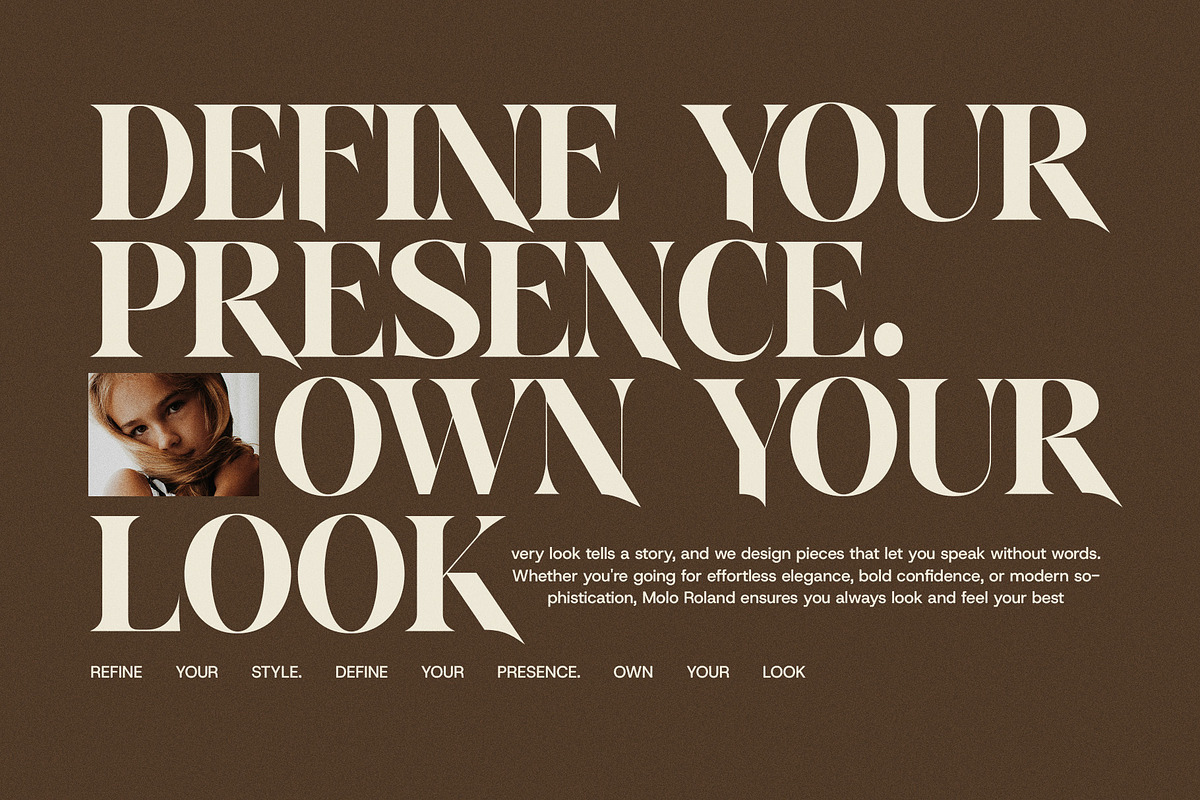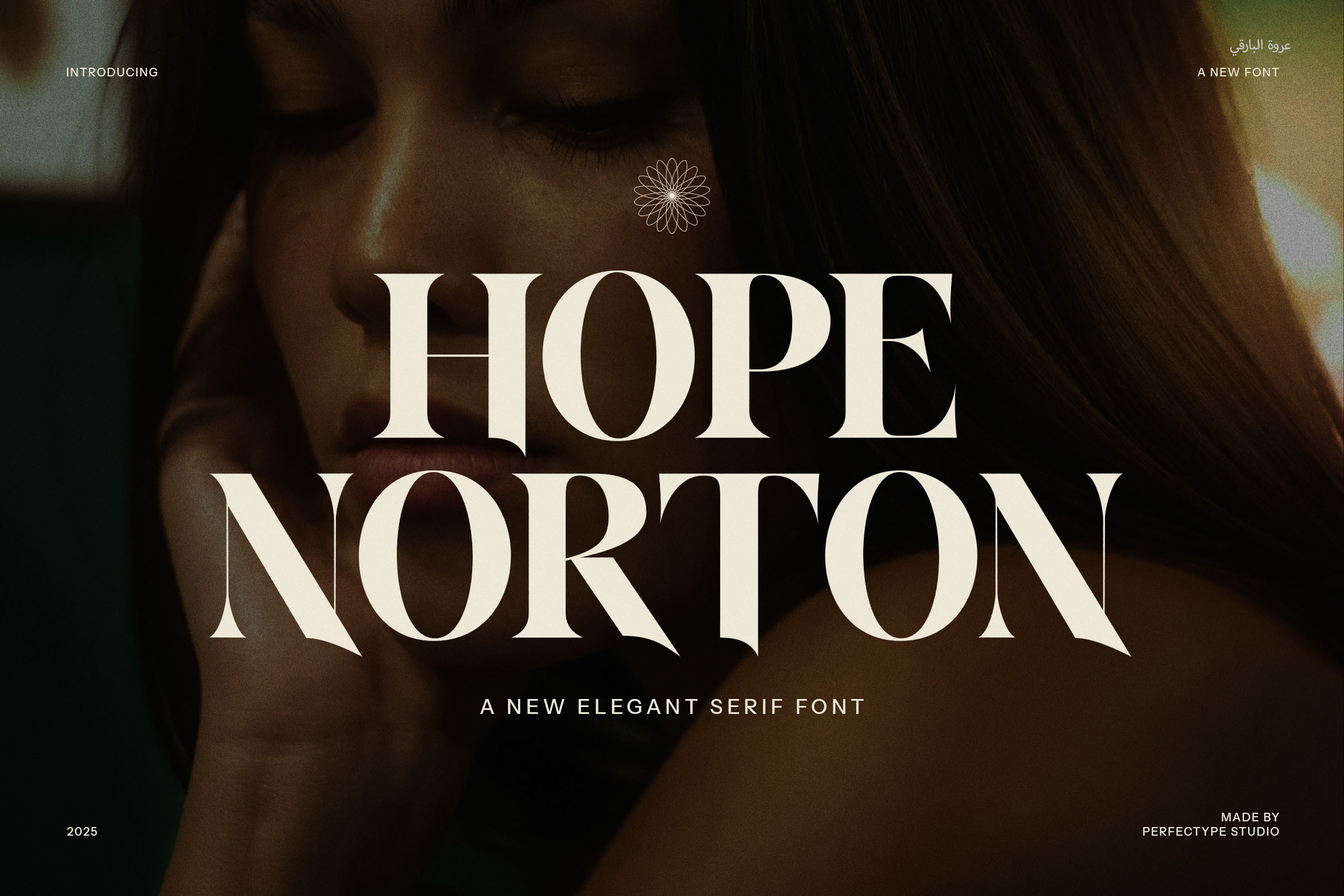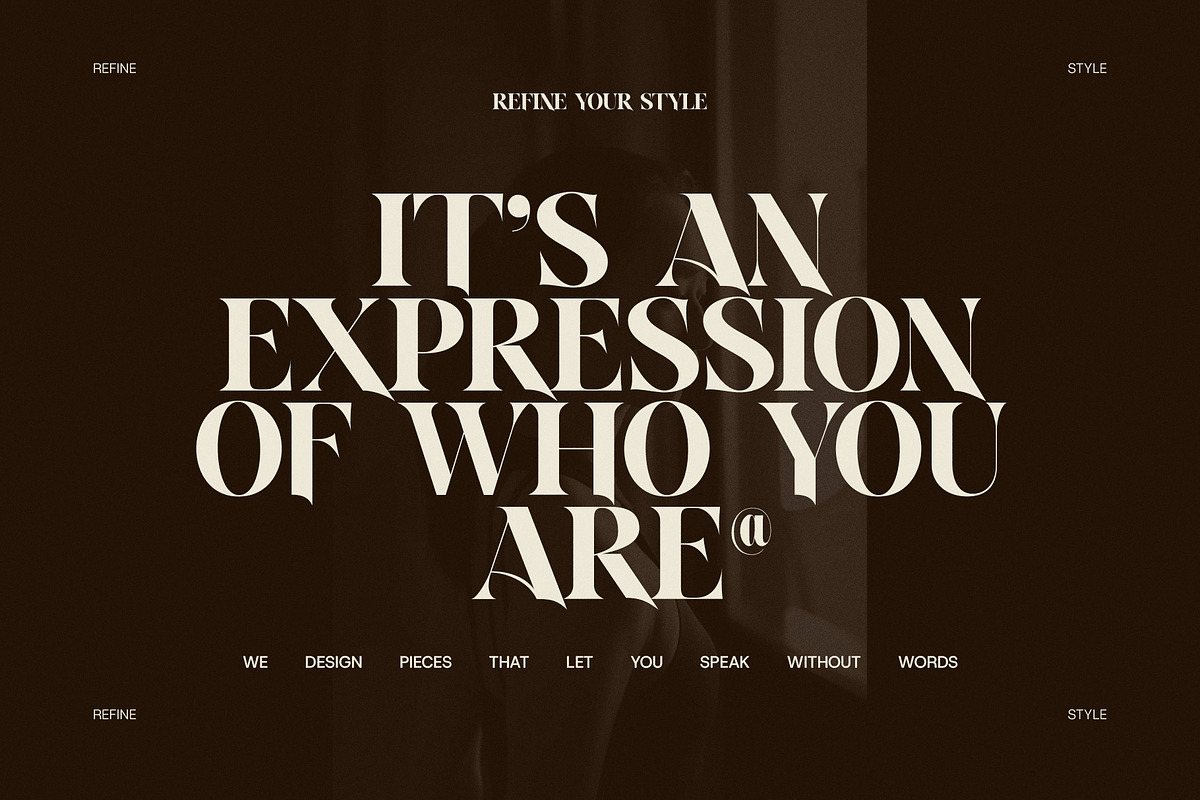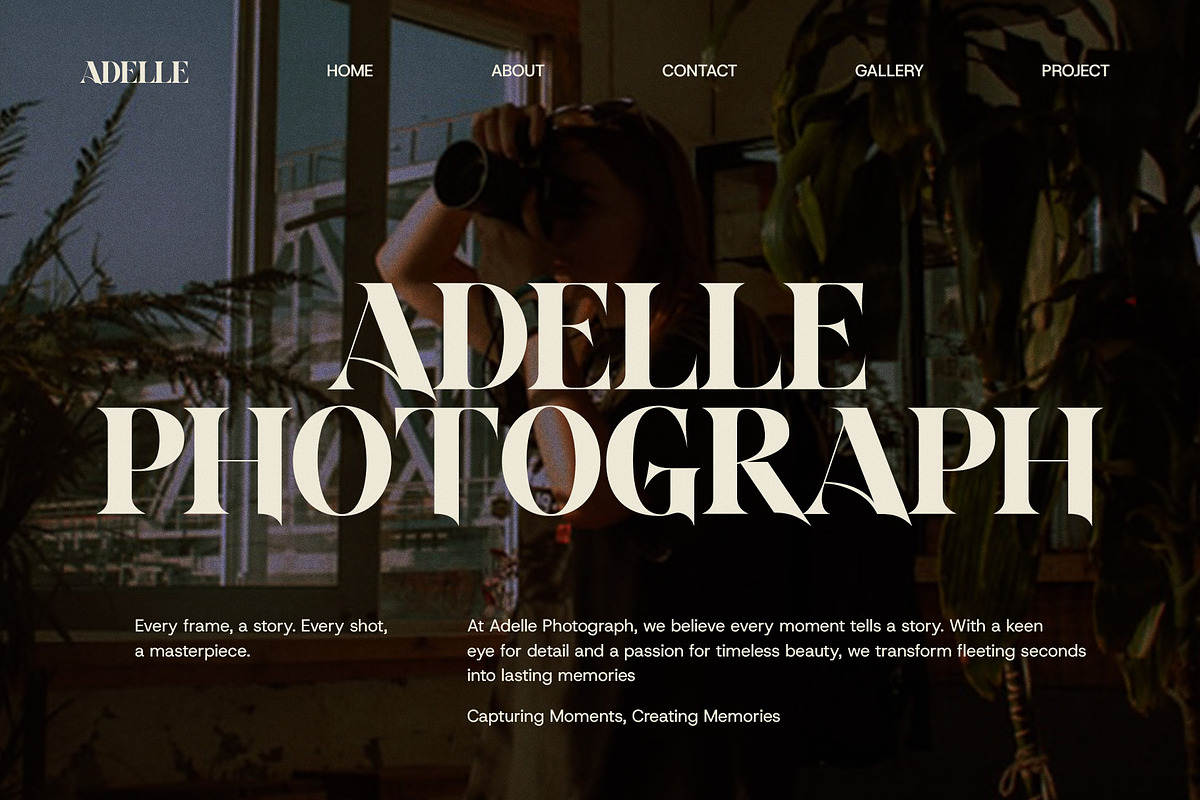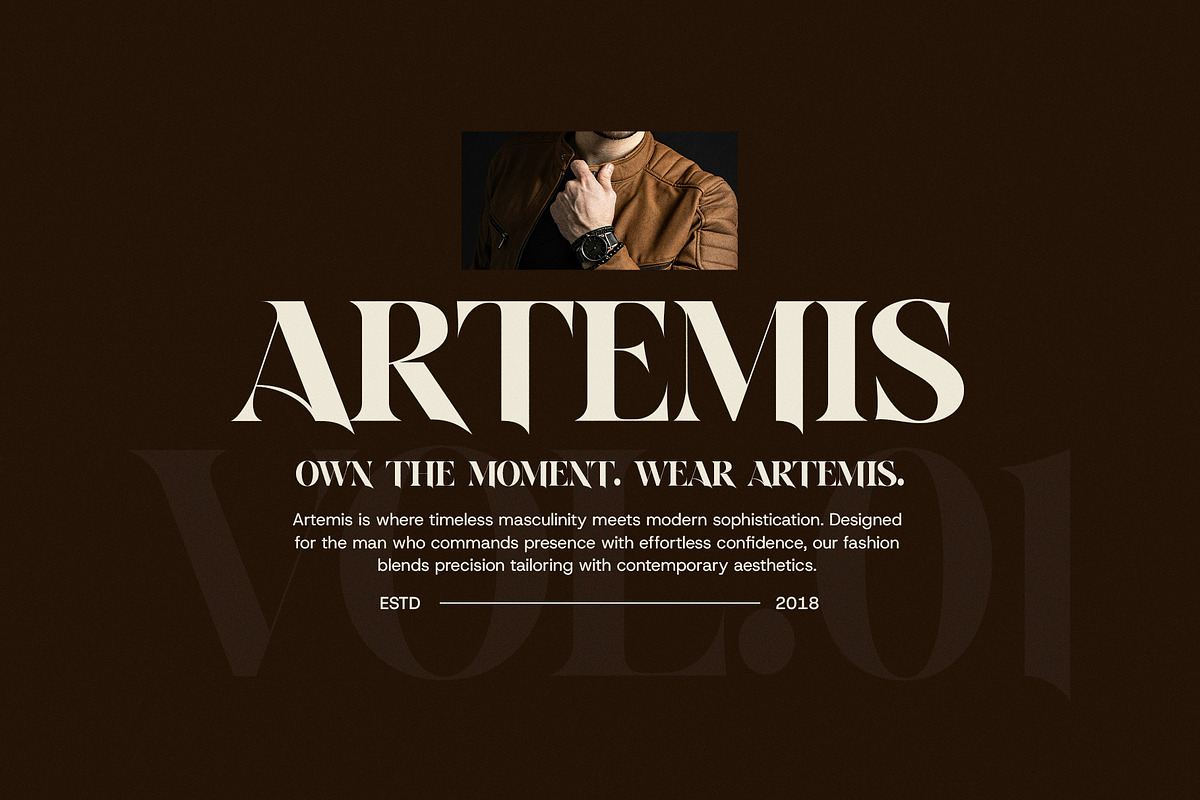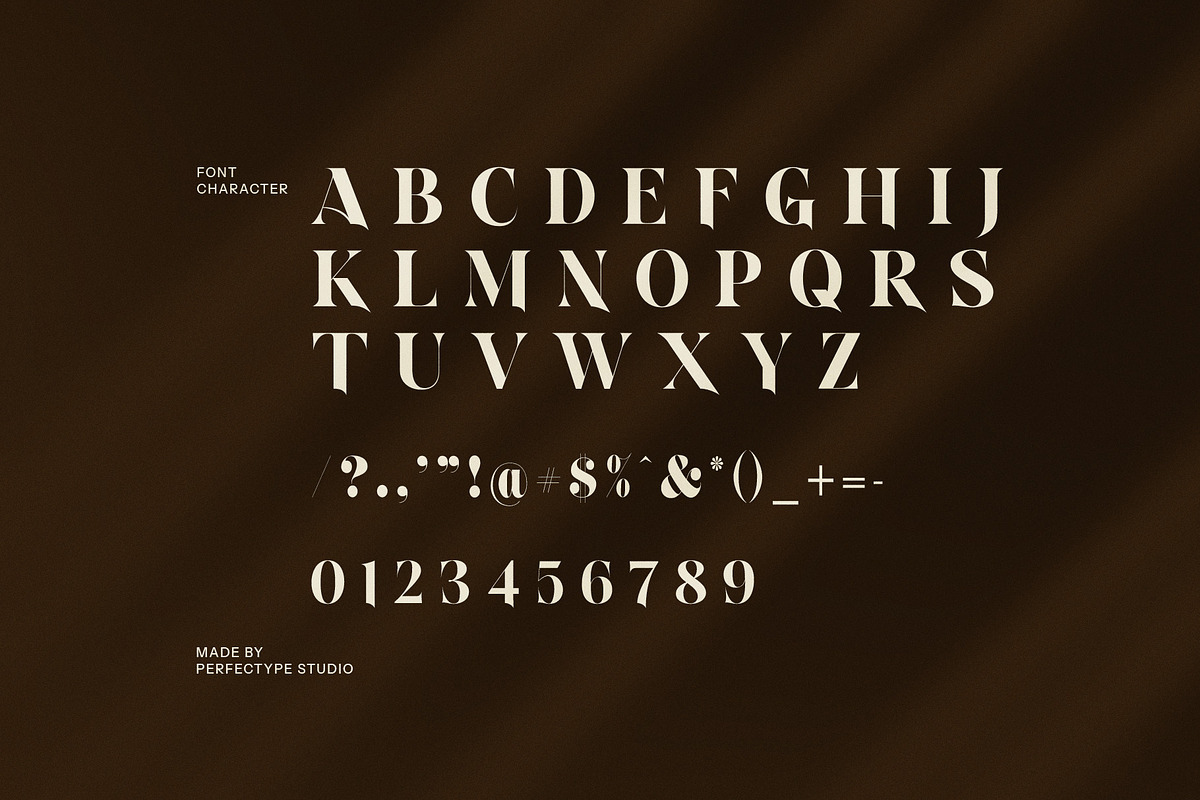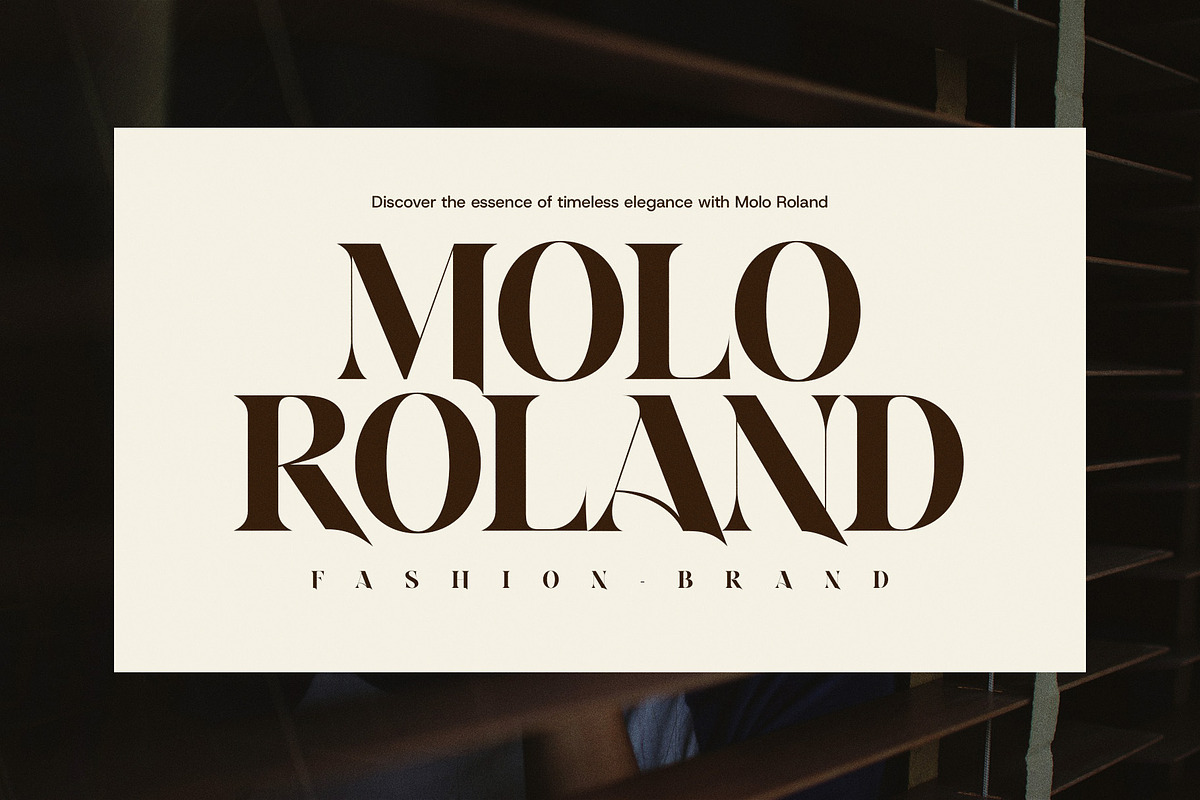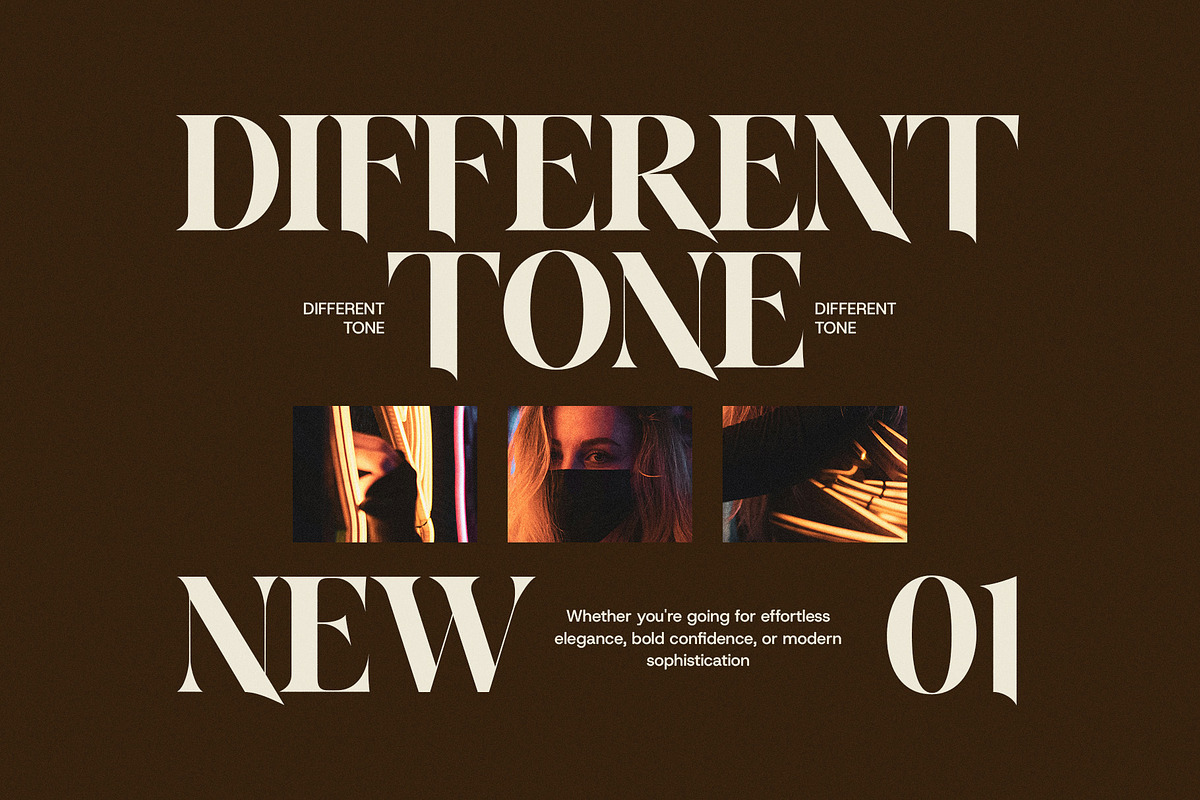
Hope Norton Elegant Serif Font
Hope Norton Elegant Serif Font is a refined and contemporary serif typeface that brings a sense of sophistication and timeless charm to any design. With its beautifully crafted serifs and smooth, flowing curves, this font strikes the perfect balance between classic elegance and modern appeal. The font’s unique ligatures and alternate forms offer endless possibilities for creative expression, allowing you to add a distinctive touch to your typography.
Ideal for high-end branding, logos, and stylish websites, Hope Norton delivers an upscale, professional aesthetic that makes an immediate impact. Its elegant structure makes it perfect for magazine layouts, premium product packaging, and advertising campaigns. Whether designing for fashion, food, real estate, or boutique businesses, this font enhances your design with a polished, luxurious feel.
Hope Norton is designed for versatility, making it just as effective in digital formats as it is in print. Whether you’re crafting eye-catching headlines, creating elegant invitations, or designing advertisements that demand attention, this font’s beauty and functionality shine through. The font’s ligatures and alternate characters provide added flexibility, allowing you to fine-tune your design and create unique, personalized text treatments.
For designers seeking a modern yet timeless serif font that adds elegance and distinction, Hope Norton Elegant Serif Font is the perfect choice. Its graceful presence and versatile design make it an essential addition to any project that calls for a sophisticated, high-quality typographic style. Let Hope Norton elevate your designs with its elegance and versatility.